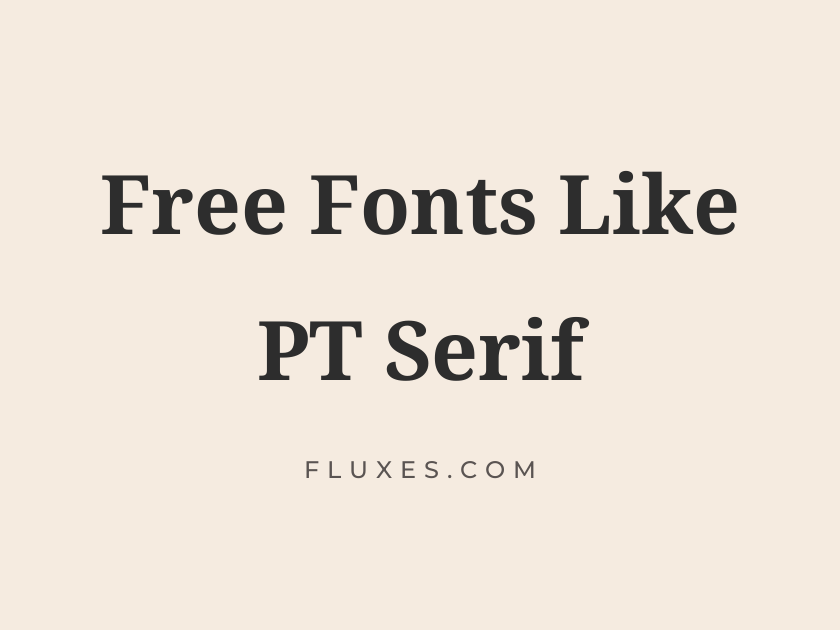
15 Best Free Fonts Similar to PT Serif
PT Serif has become a go-to workhorse for web designers who need a serif that reads cleanly on screen without losing warmth on the page. Paratype built it as a transitional design with sturdy strokes, generous x-height, and open counters, which makes it forgiving at body-text sizes and comfortable across long-form articles, documentation, and UI copy. If you are hunting for free fonts similar to PT Serif on Google Fonts, the goal is usually the same: a humanist serif that feels professional and legible rather than decorative, with enough character to hold its own in headlines too.
The alternatives that follow share that transitional backbone, sturdy screen performance, and a similar sense of practical warmth, whether you need a straight swap or just a fresh option with the same working-serif spirit.
Reliable text for every language and platform
Noto Serif is the closest sibling to PT Serif in spirit: both were built with broad language coverage and screen legibility as top priorities. The proportions are calm and even, the serifs are sturdy rather than delicate, and it holds up well in dense paragraphs of body copy. If your project needs multilingual reliability without sacrificing readability, this is the safest first stop.
Editorial text that stays crisp at any size
Adobe’s Source Serif 4 was designed specifically to pair with Source Sans, but it stands on its own as a workhorse text face. It has a slightly more refined, literary feel than PT Serif while keeping the same sturdy, screen-ready construction. Use it where you want a touch more elegance without drifting into display territory.
Long articles that stay comfortable to read
Merriweather was drawn with tight letterspacing and a heavy weight built specifically to survive small screens, which puts it in nearly the same design lane as PT Serif. The letterforms feel sturdy and a little compressed, almost like they were built to resist blur on low-resolution displays. It is a favorite for blogs and news sites that need a dependable serif for paragraph after paragraph of text.
Slab strength for confident body copy
Bitter brings a slab-serif structure that shares PT Serif’s confident, no-nonsense weight but pushes the feet slightly heavier and more geometric. It was originally designed for on-screen reading, so it carries that same practical DNA. Try it where you want a body serif with a bit more visual weight and personality.
Warm storytelling for print and web alike
There is a gentle calligraphic undertone running through Lora’s curves that softens it compared to PT Serif’s more mechanical sturdiness. It still reads comfortably at body sizes and has become a popular choice for blogs, memoirs, and long-form storytelling. Pair it with a clean grotesque sans for headings if you want contrast without clashing moods.
Headlines and body text with quiet confidence
Domine was built explicitly for web headlines and body text that needs to compete with sans-serif interfaces, which mirrors exactly why PT Serif gets chosen so often. Its forms are slightly more condensed and upright, giving it a tidy, restrained presence on the page. It works particularly well in blog templates where the serif needs to feel current rather than old-fashioned.
Book-like text with a gentle, grounded feel
Vollkorn has an old-style warmth that leans a little more literary than PT Serif, with softer contrast and a bookish rhythm to its letterforms. It was one of the earlier serif fonts built for the web and still reads beautifully in long paragraphs. Reach for it when a project wants a text face with a touch more traditional character.
Sturdy geometry for interfaces and headings
Arvo trades transitional curves for a geometric slab structure, giving it a more mechanical, architectural feel than PT Serif. The slab feet add real presence at display sizes, though at very small sizes the heavier strokes can feel a touch dense. It suits dashboards, portfolios, and any interface that wants a serif with an engineered edge.
Modern structure with a technical, engineered edge
Roboto Slab carries the same grounded geometry as its sans-serif namesake, with slab feet that feel more contemporary and mechanical than PT Serif’s transitional warmth. It fits naturally into interfaces and product sites that already use Roboto elsewhere in the type system. Consider it when consistency with an existing Roboto-based brand matters more than historical character.
Friendly slab serif built for reading online
Commissioned by Mozilla for its own design system, Zilla Slab has a friendly, slightly quirky warmth in its slab feet that keeps it from feeling too corporate. It reads well at body sizes and has enough personality in its display weights to anchor a homepage headline. It is a solid pick for tech-adjacent or documentation-heavy sites wanting something less generic than the usual slab choices.
IBM Plex Serif
Corporate clarity with a human touch
IBM Plex Serif
IBM Plex Serif was designed as part of a full type system spanning sans, serif, and mono, so it has a deliberate, engineered consistency that feels more corporate than PT Serif’s editorial warmth. It stays legible and composed at small sizes, making it dependable for reports, documentation, and technical content. If your project already uses Plex Sans or Plex Mono, this is the obvious serif companion.
If you need multilingual support similar to PT Serif’s Cyrillic coverage, Noto Serif and Source Serif 4 are the most dependable choices.
Always test your chosen font at the exact size it will render at in production, since some of these turn slightly heavier or lighter than expected on different screens.
Any of these free Google Fonts can step confidently into a project that would have reached for PT Serif, whether the goal is a warmer editorial voice, a sturdier slab presence, or simply a fresh face with the same reliable, screen-ready character.